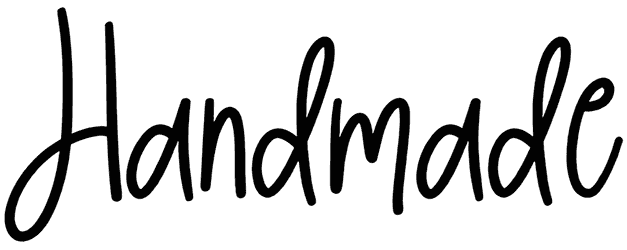
Handmade Font
When you use a sweet and realistic manuscript for your innovative layout, the outcome will become eye-catching, and this is the result of using Handmade font. All characters have soft and curvy forms that can convey a friendly vibe to your followers. This handwritten font is a perfect pick for many projects, such as a designer’s business card.